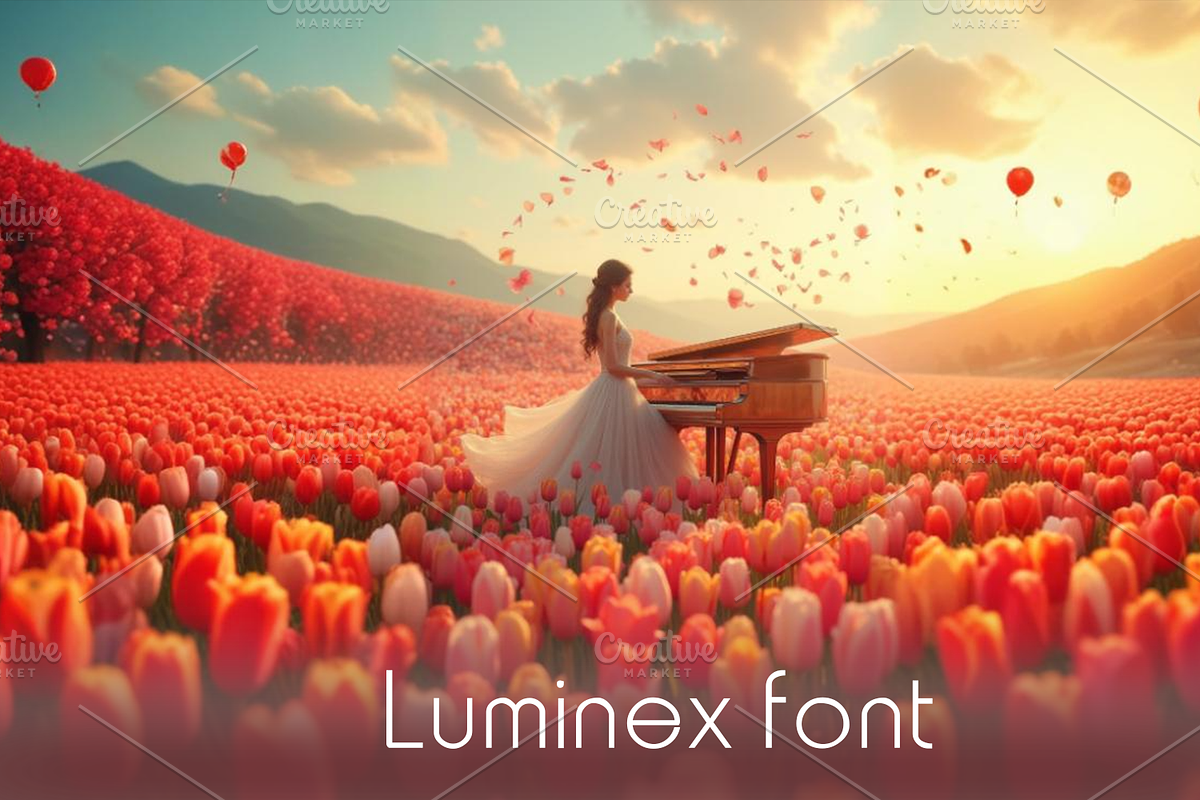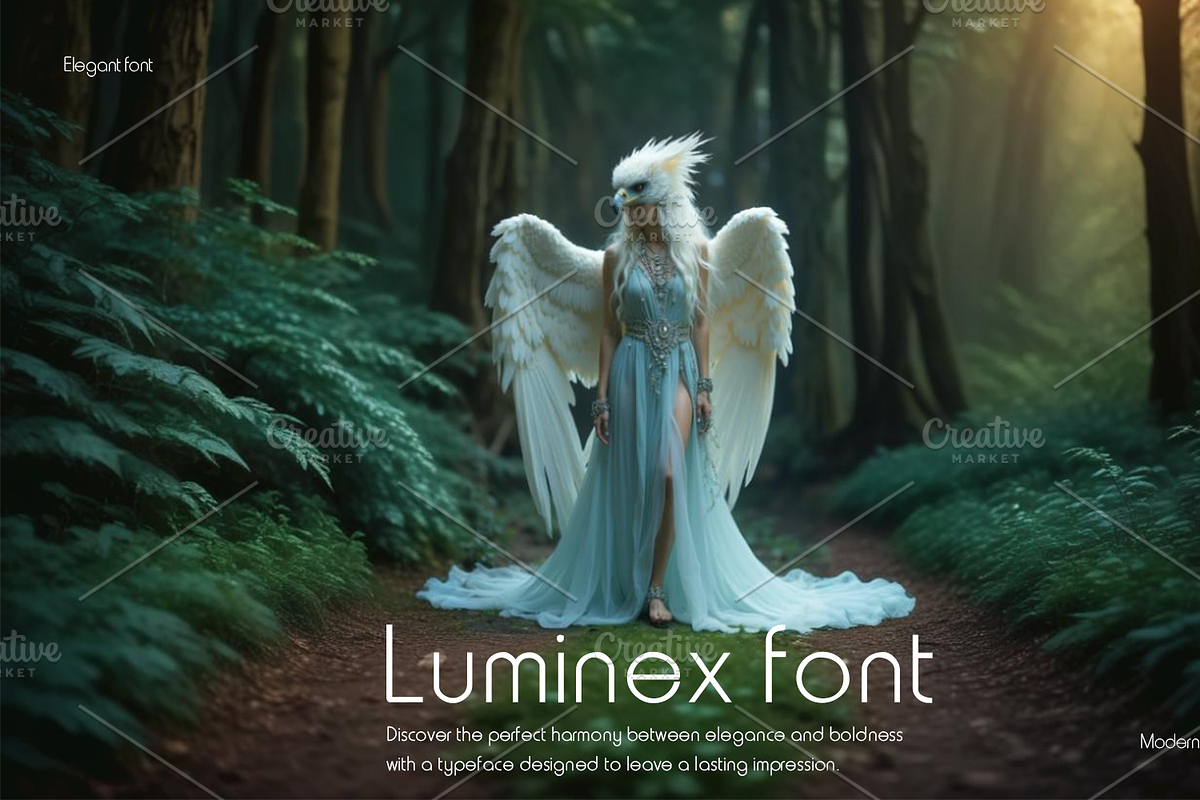
Discover the perfect harmony between elegance and boldness with a typeface designed to leave a lasting impression. Luminex is your go-to font for luxury branding, editorial design, modern apps, and sleek presentations.
With its geometric balance and clean, contemporary flow, this typeface brings refined sophistication to every project while remaining effortlessly readable and stylish.